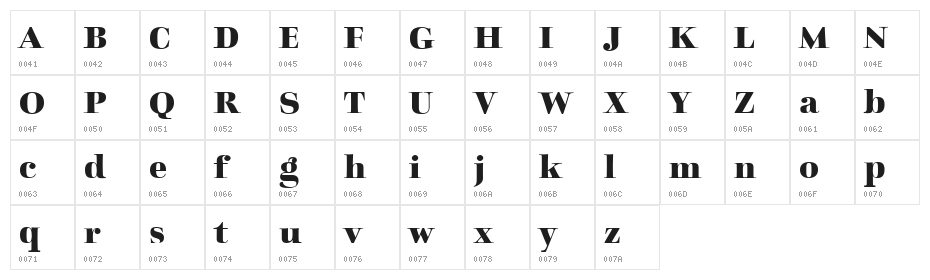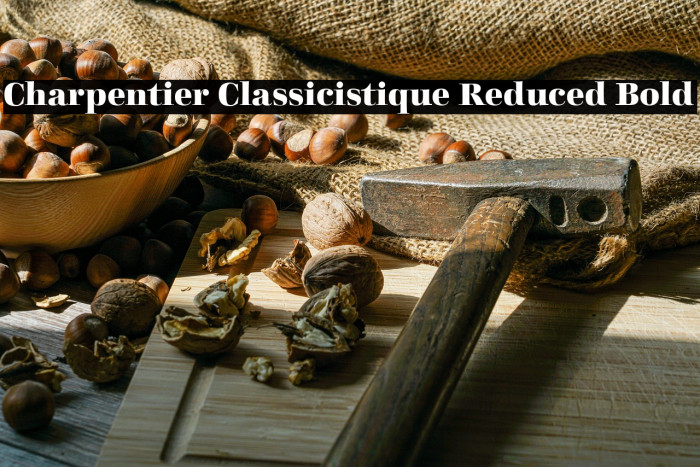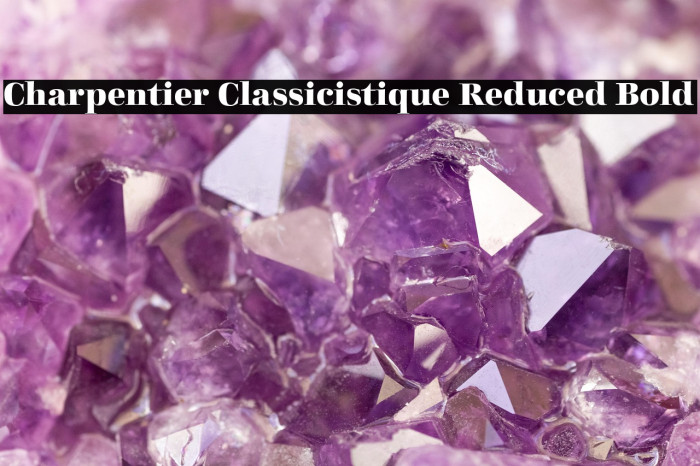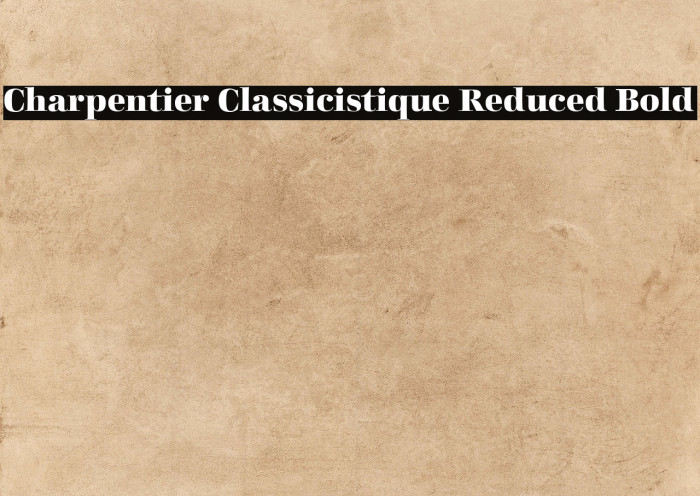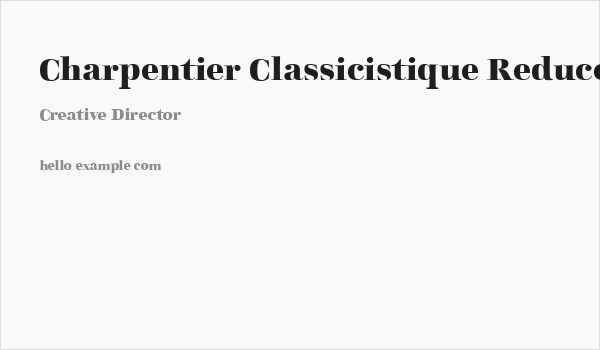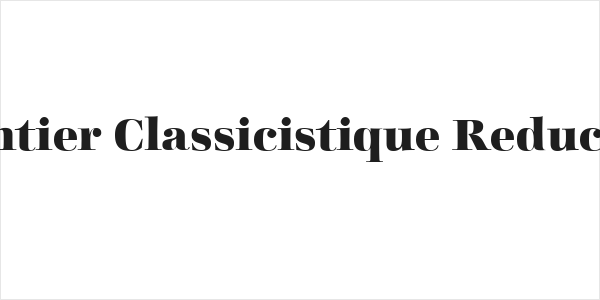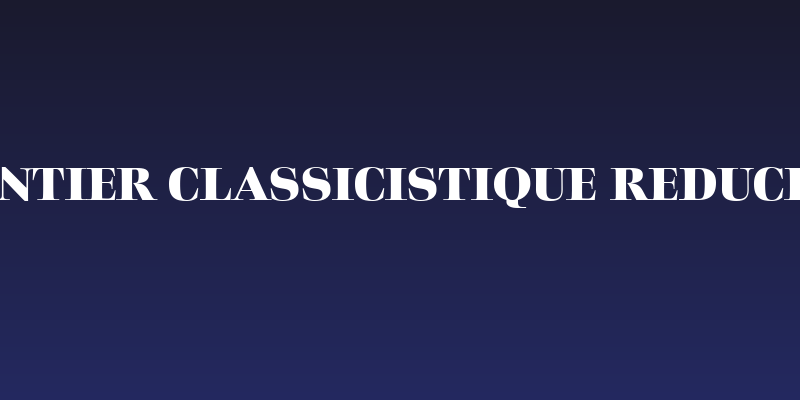
Charpentier Classicistique Reduced Bold Font
Charpentier Classicistique Reduced Bold Description
This font embodies a classic and elegant serif style with a bold presence. The characters exhibit a high contrast between thick and thin strokes, giving it a sophisticated and authoritative appearance. The serifs are pronounced and sharp, adding to the traditional aesthetic. The uppercase letters are stately and commanding, while the lowercase letters maintain a harmonious balance with a slightly more rounded form. The numerals and special characters are consistent with the overall design, ensuring a cohesive look across all text. This font is ideal for projects that require a touch of formality and timelessness.
| Use Case | Headlines, Logos, Editorial design |
| Proposed Projects | Ideal for use in formal invitations, book covers, branding for luxury products, and editorial headlines. |